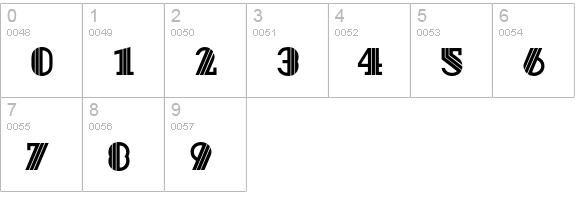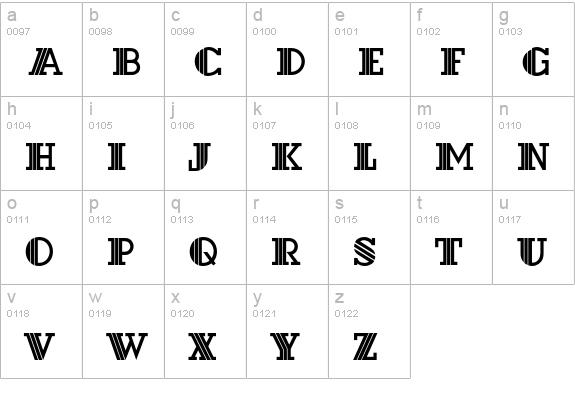
Dextor D Font Details
Introducing the elegant and modern Dextor D font, a versatile typeface that exudes sophistication and style. With its clean lines and sleek design, Dextor D is perfect for a wide range of design projects, from branding to editorial layouts. This font is sure to make a statement and elevate any design to the next level. The best part? Dextor D is completely free to download at FontsMarket.com. That's right, you can access this high-quality font at no cost, making it a valuable addition to your font collection. Don't miss out on the opportunity to enhance your projects with the timeless beauty of Dextor D. Download it today and let your creativity soar!